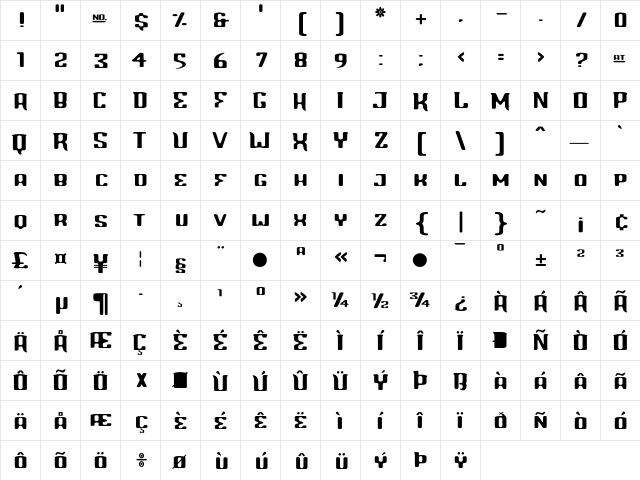
Blinddate Regular
| Foundry | Copr. (T- ) Chicago,Illinois Adam RoeCopr.-Designer |
Design Context for Blinddate Typeface
Blinddate is a composed and adaptable typeface that performs quietly and consistently across a wide range of design contexts.